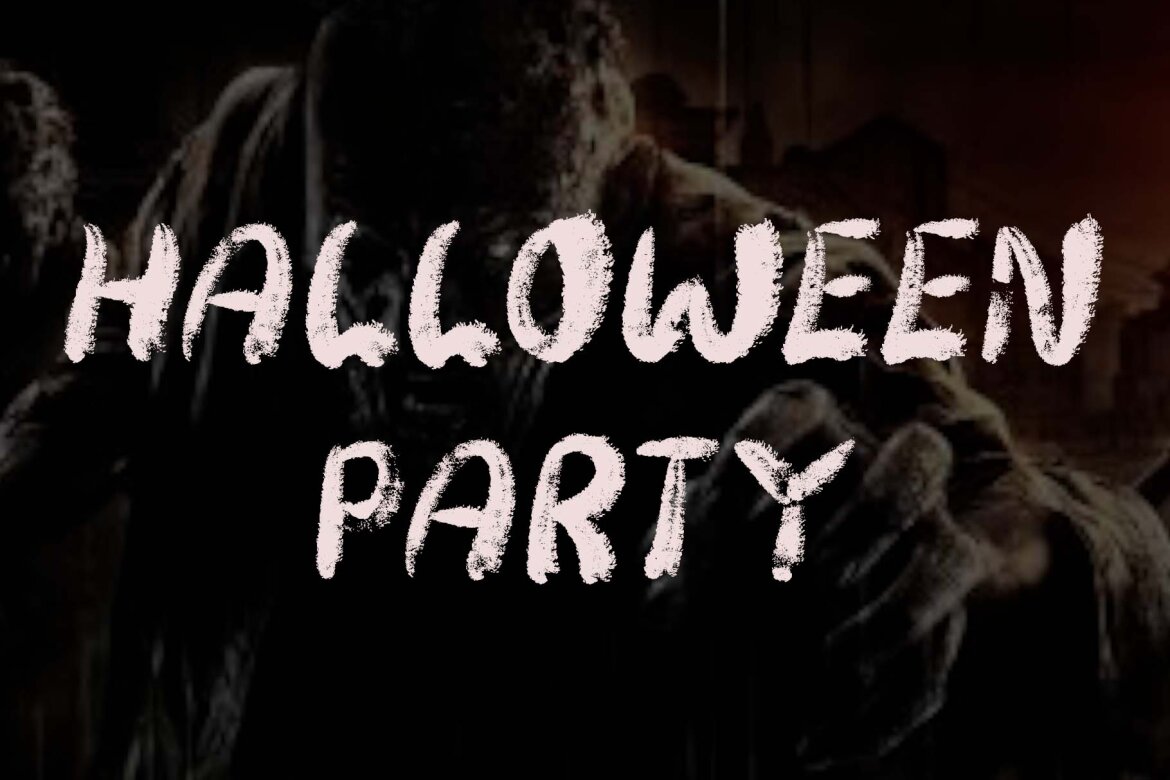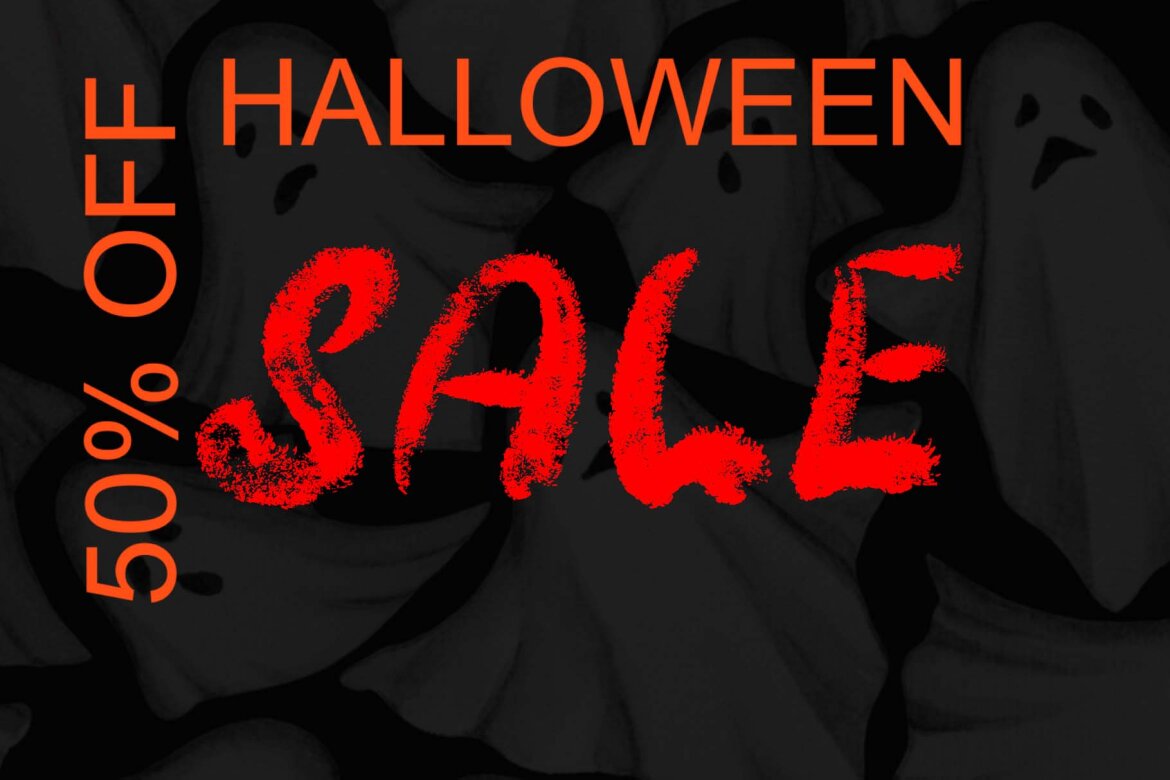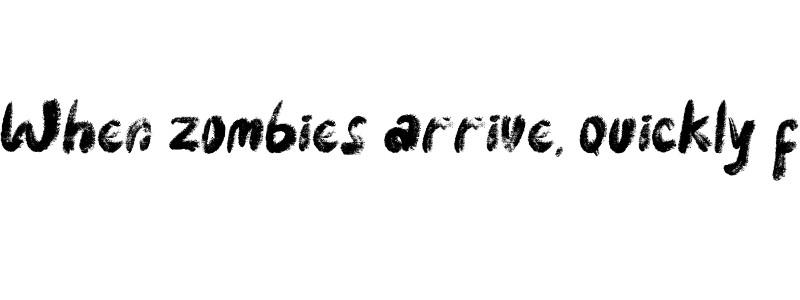
Zombie Predator FREE Brush Font
Zombie Predator
"Zombie Predator" is a scary horror display font. This font is very suitable for horror movie titles, Halloween, banners, posters, stickers, branding, book titles, and more. This font is equipped with uppercase, lowercase, numerals, punctuation, and multilingual support.
• lowercase
• numeral
• punctuations
• uppercase